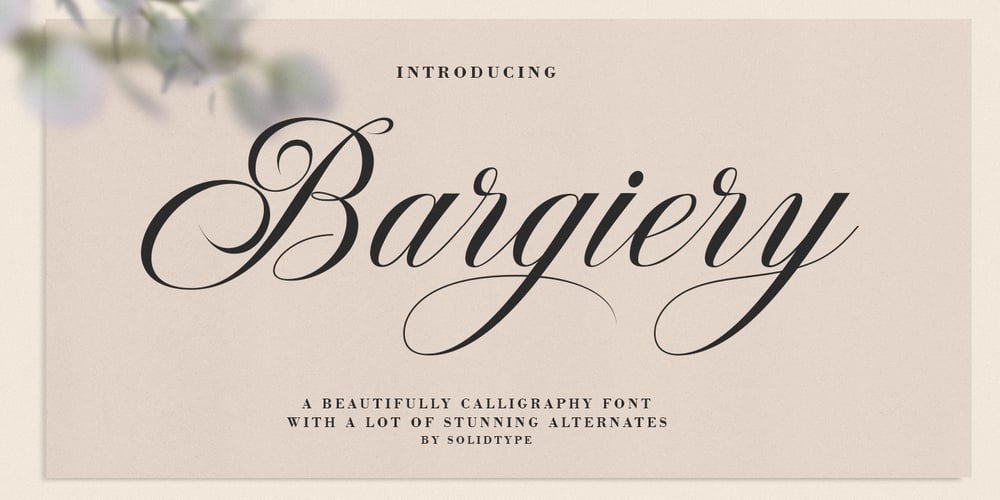
Bargiery Font Family was designed by Riski Firmana and published by Solidtype. Bargiery contains 1 styles and family package options. Please welcome our newest script typeface.Bargiery – Calligraphy script. Beautiful and elegant script typeface with unique alternatives and italics. This font is very suitable for use, especially in logos, and various other formal forms such as invitations, labels, logos, magazines, books, greeting / wedding cards, packaging, fashion, make up, stationery, novels, labels or other types. advertising purposes.To enable OpenType Stylistic alternates, you will need a program that supports OpenType features such as Adobe Illustrator CS, Adobe Indesign & CorelDraw X6-X7, Microsoft Word 2010 or later versions